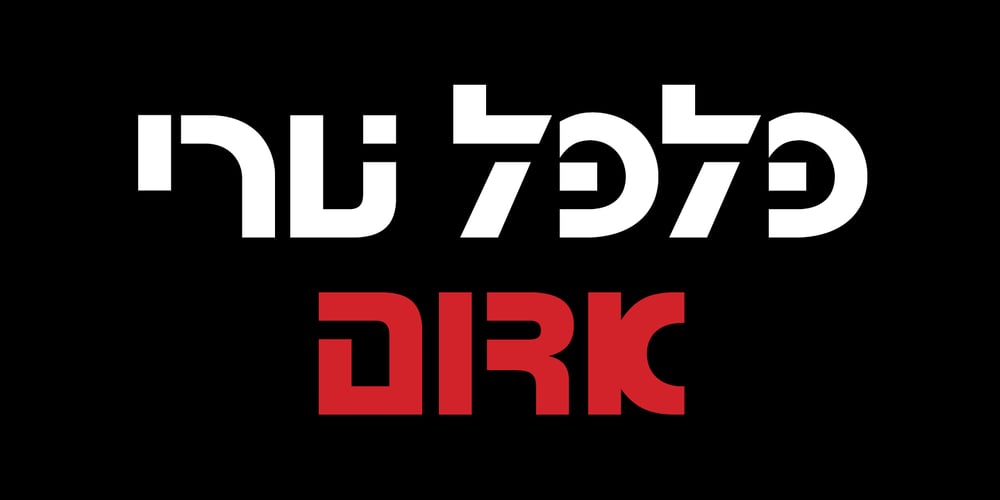
Abirim Font Family was designed by Zvika Rosenberg and published by Masterfont. Abirim contains 1 styles and family package options. This industrial follows the rough Hebrew type by intensive and bold lines.